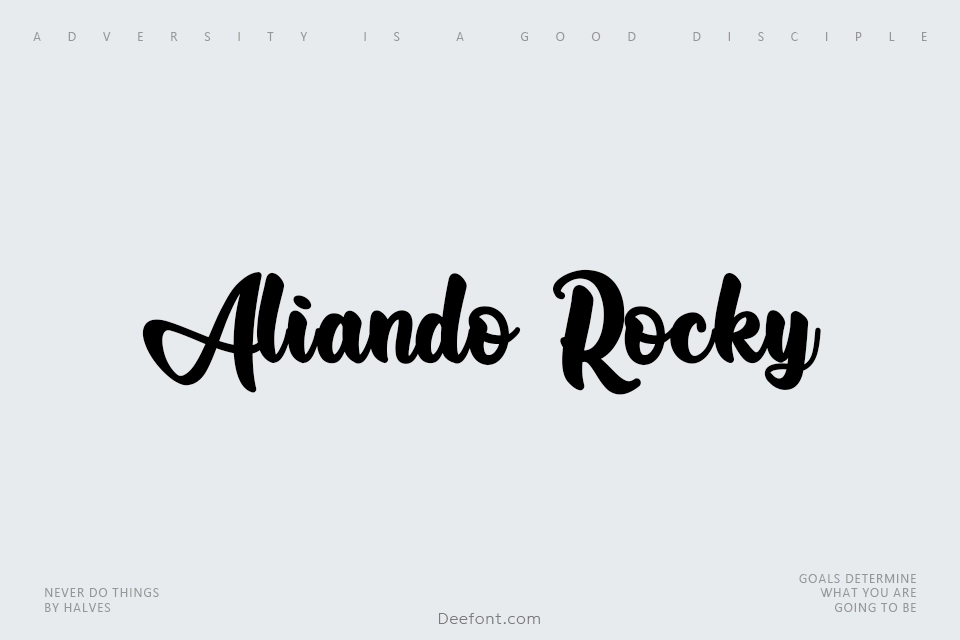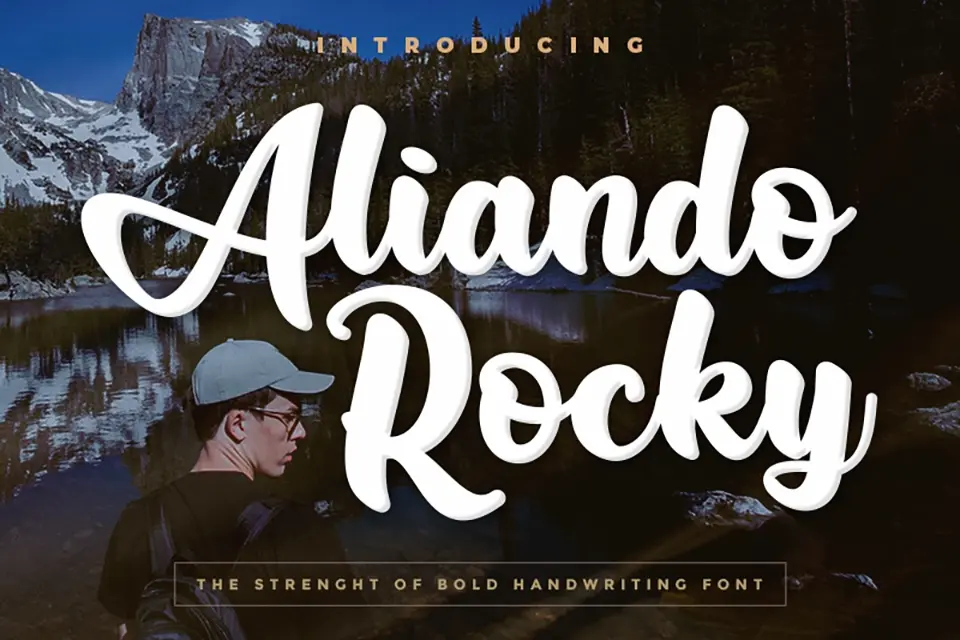
Aliando Rocky Font
Aliando Rocky is a bold and expressive script font featuring flowing, cursive forms with a playful and energetic vibe. Designed by Kotak Kuning Studio, this decorative typeface showcases dynamic uppercase letters and rounded lowercase characters perfect for creative branding, invitations, posters, and social media graphics. With 102 carefully crafted glyphs, the font combines contemporary flair with distinctive personality, making it ideal for projects requiring an eye-catching and versatile design element that balances creativity with readability.